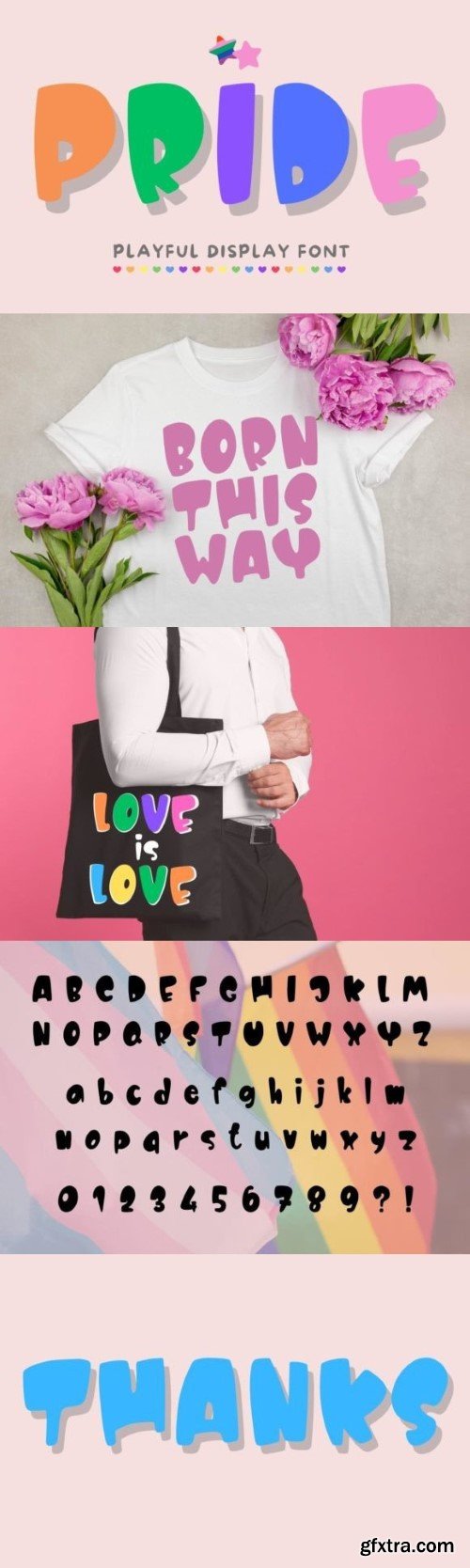
pride font
Pride is a cool, creative, and useful playful display font. No matter the topic, this font will be an incredible asset to your fonts’ library, as it has the potential to elevate any creation.